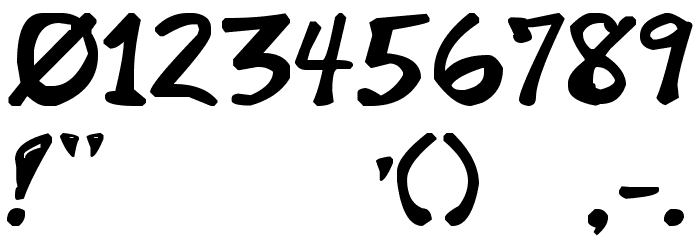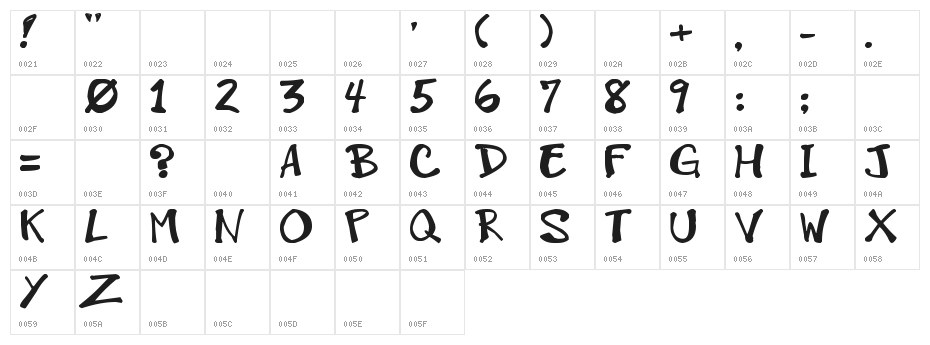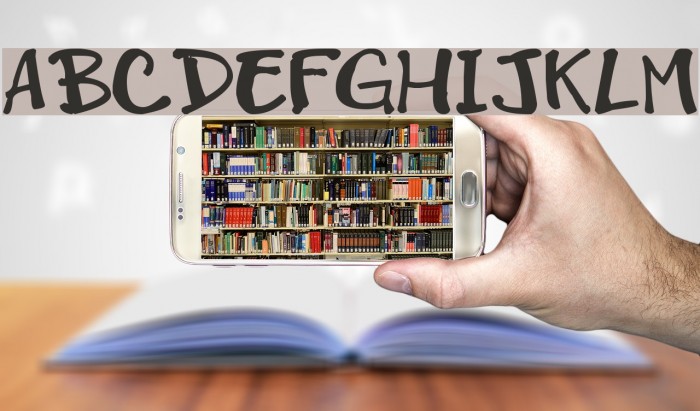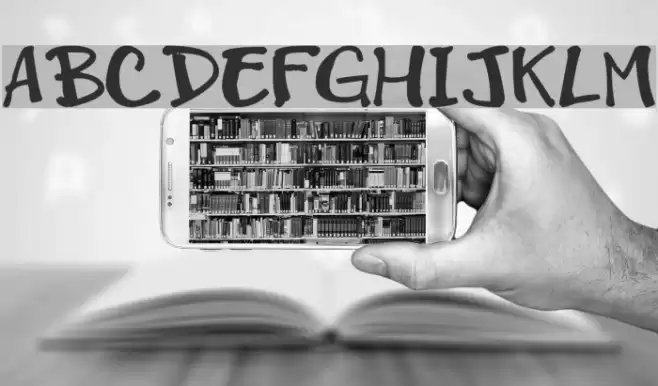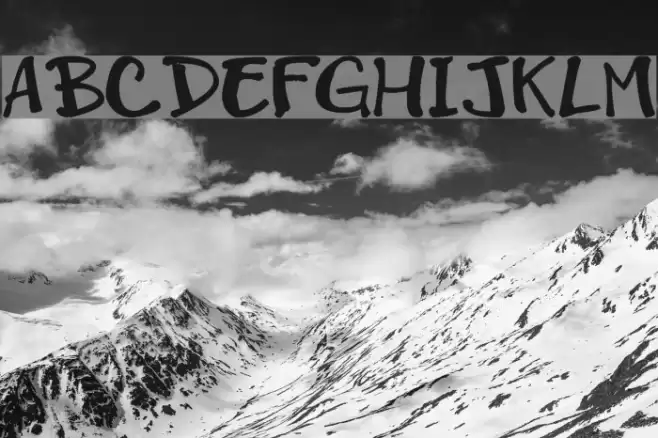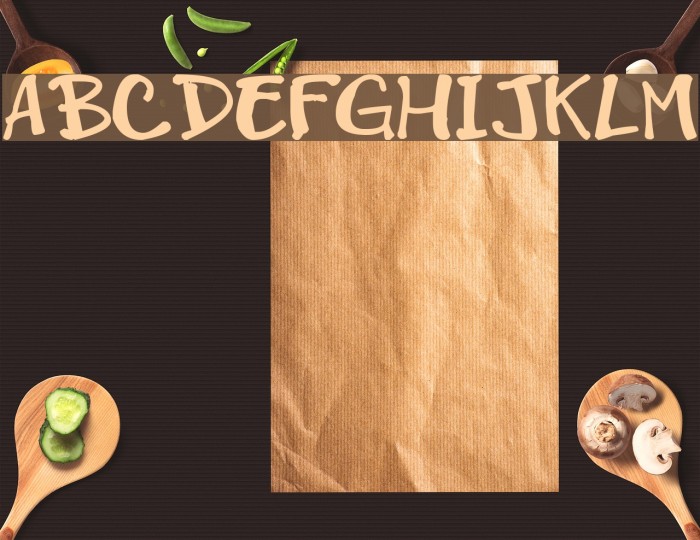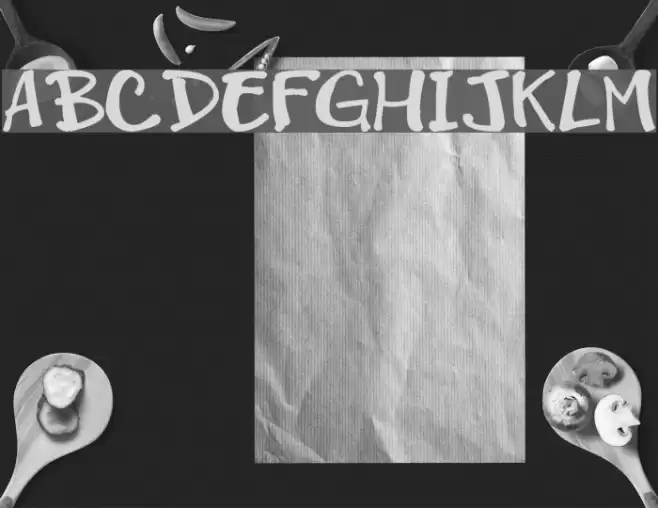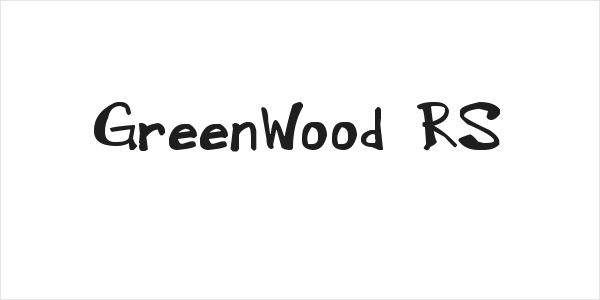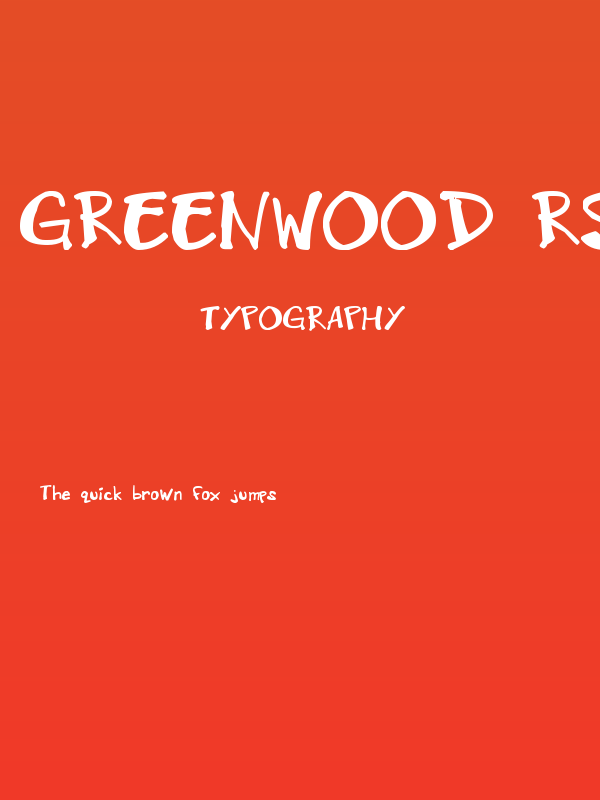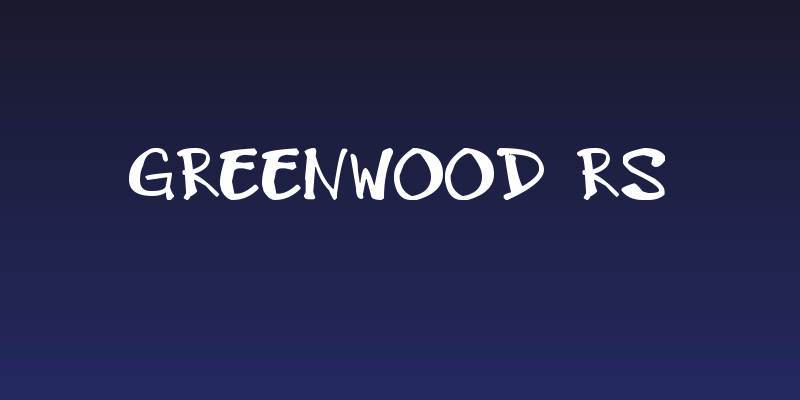
GreenWood_RS Font
GreenWood_RS Description
This font features a playful and dynamic handwritten style, characterized by its bold and slightly irregular strokes. The letters have a casual, informal appearance, with a sense of movement and energy. The uppercase and lowercase letters maintain a consistent style, with rounded edges and varying stroke widths that add to its lively feel. The numerals and special characters are equally expressive, making the font suitable for creative and informal applications. Its unique style can add a personal touch to any design project.
| Proposed Projects | Ideal for greeting cards, children's books, playful branding, and creative posters. |